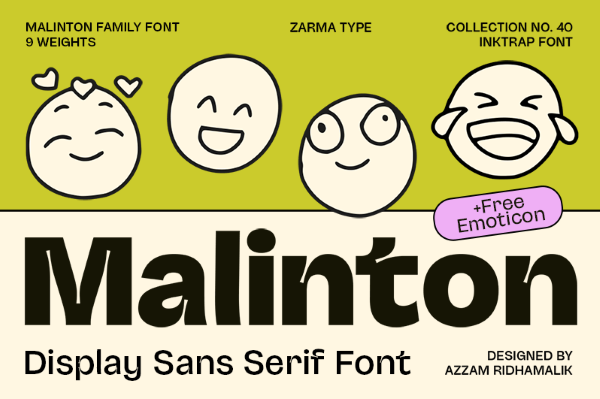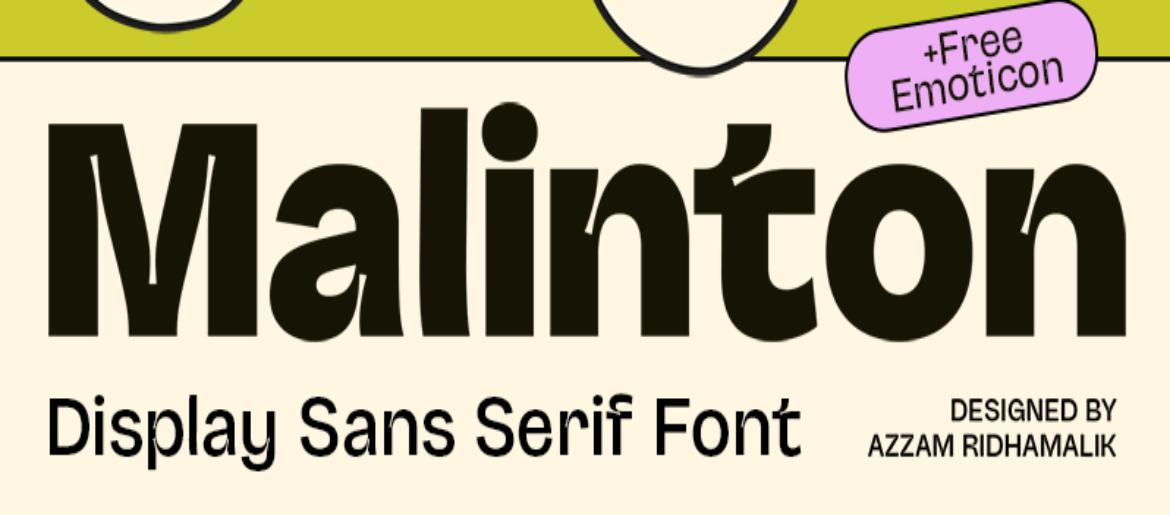
Malinton Font
Malinton by Zarma Type Foundry is a geometric sans-serif with a polished, contemporary confidence that earns its nine-weight span — from Thin through Black — in the trial release. Each weight is well-considered and purposefully distinct, giving designers a complete typographic toolkit for building cohesive visual systems rather than being limited to a single expressive moment. The clean geometric construction balances precision with approachability, making it a strong candidate for brand identity work, tech and startup communications, editorial design, and digital interfaces where legibility and character must coexist without compromise. Free for personal use.
Malinton is a refined nine-weight geometric sans system in our free font collection, from Zarma Type Foundry — a typeface designed with the full scope of brand typography in mind. Nine weights mean nine different ways to say the same thing with exactly the right emphasis. Browse our full library of free fonts and discover more distinctive typefaces crafted by independent designers around the world.